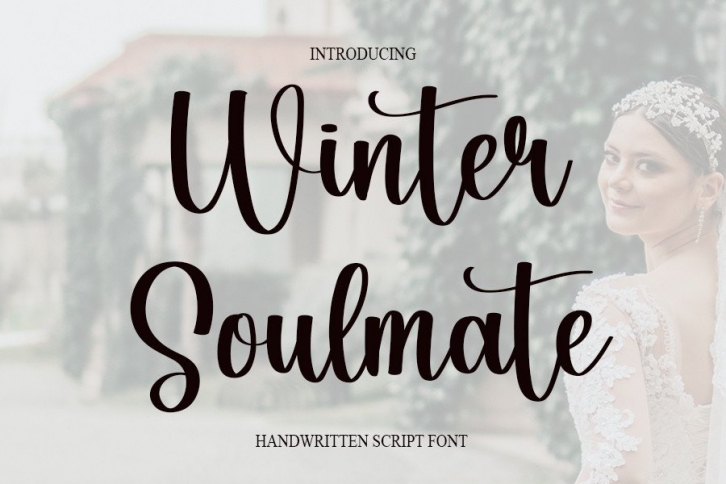
Winter Soulmate FONT Download
Winter Soulmate Font Download
Winter Soulmate is a neat and beautiful handwritten font described by an elegant touch, perfect for your favorite projects. Fall in love with its incredibly distinct and timeless style, and use it to create spectacular designs!